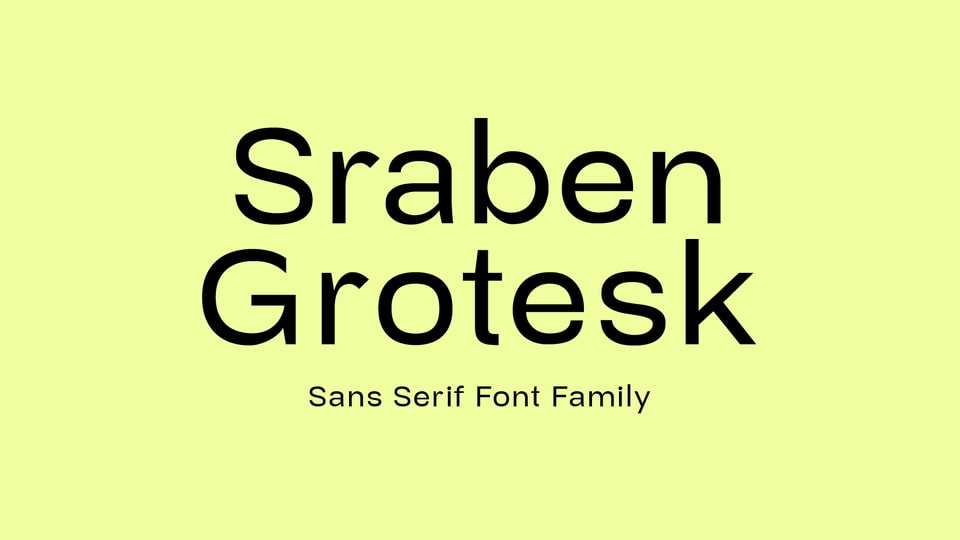
Download Sraben Grotesk font, a beautiful, versatile typeface that features balanced and harmonious proportions, plus bold variations to make certain elements stand out.
Designer: Yukita Creative